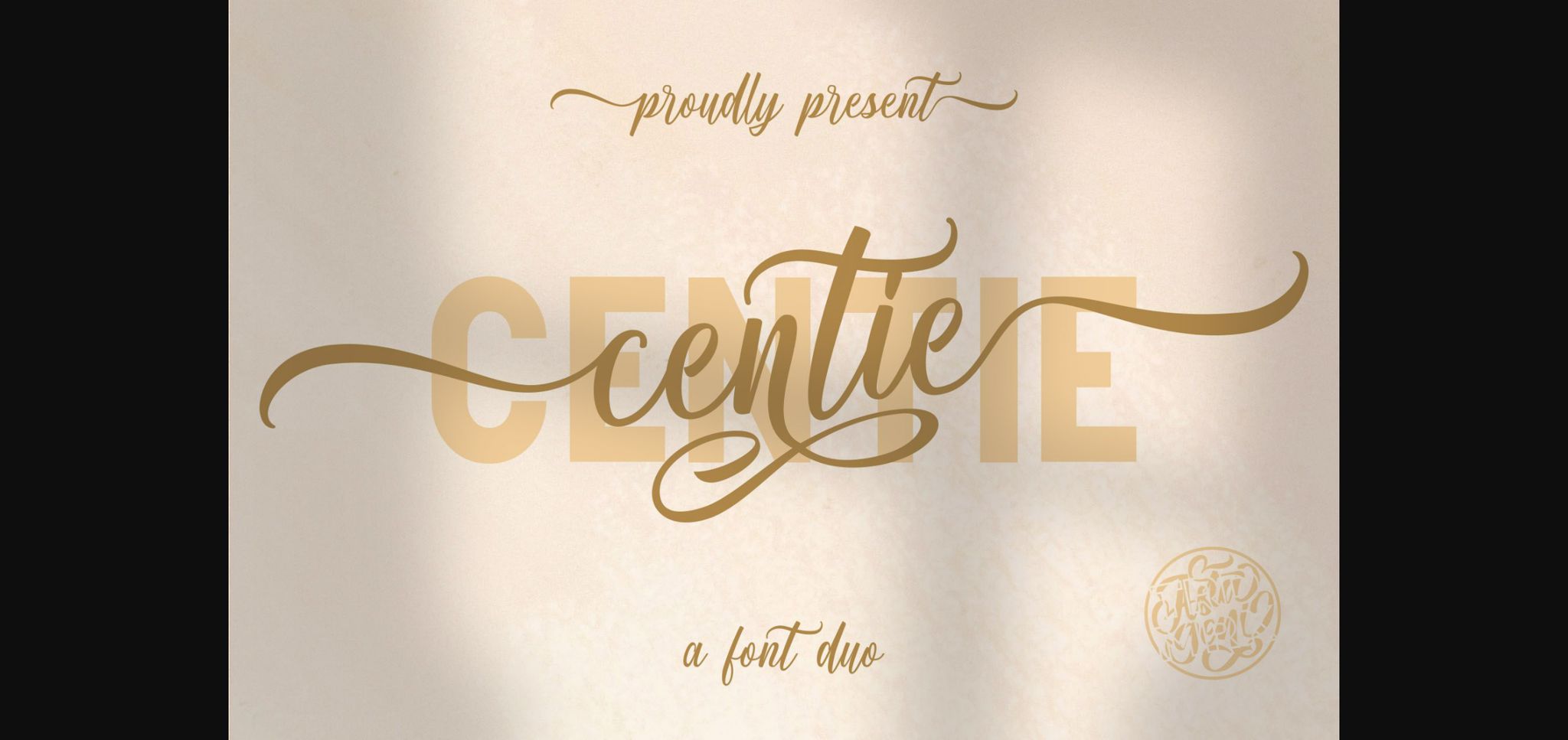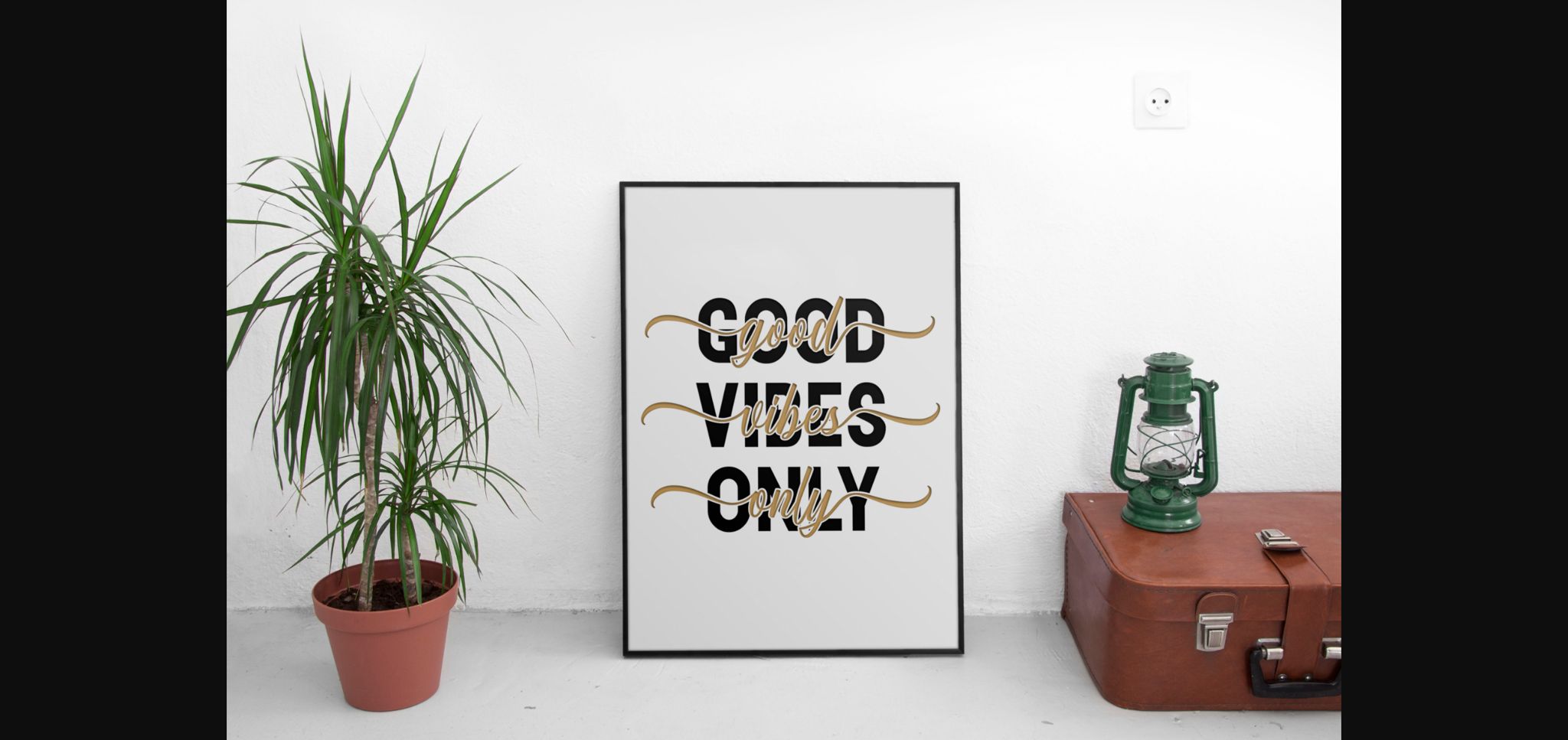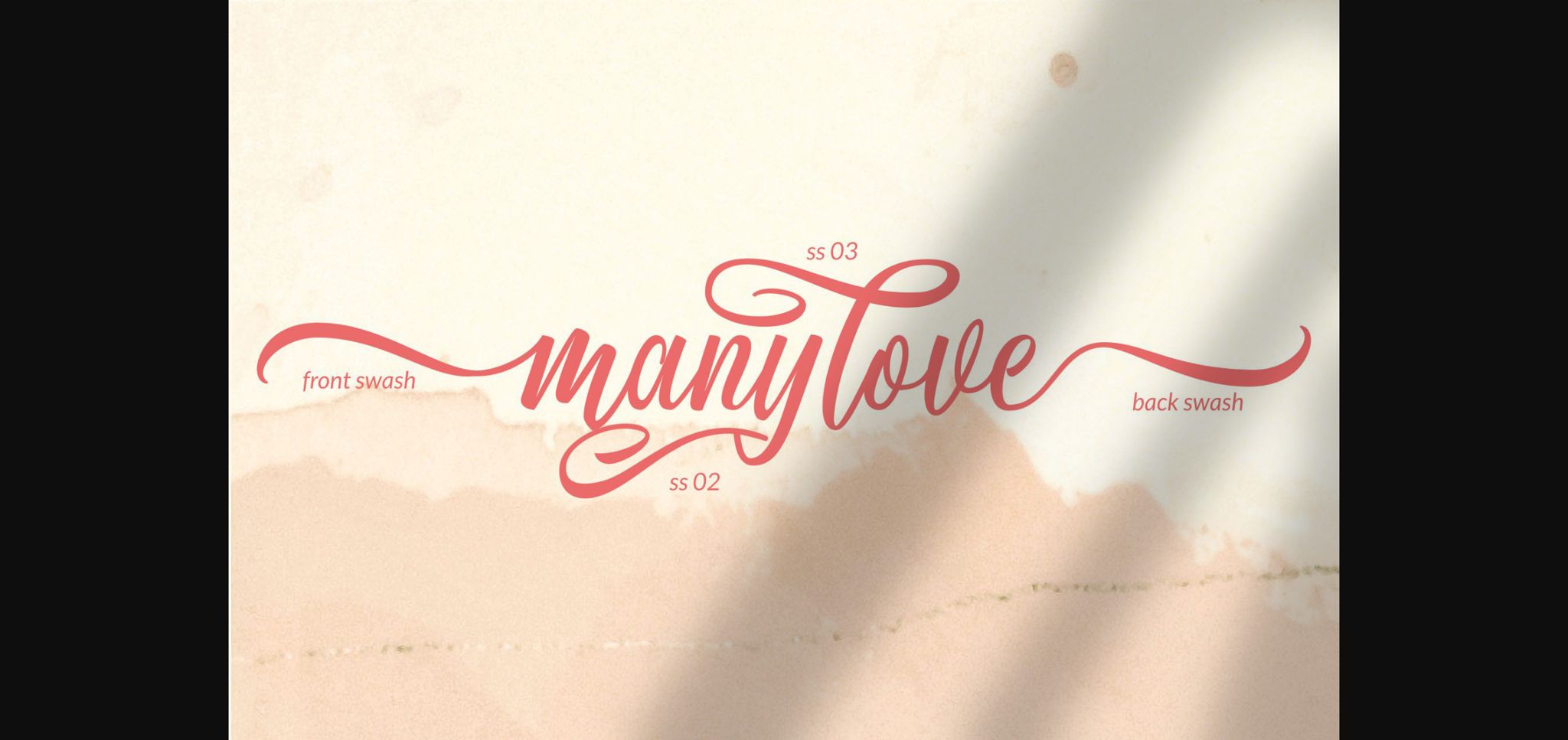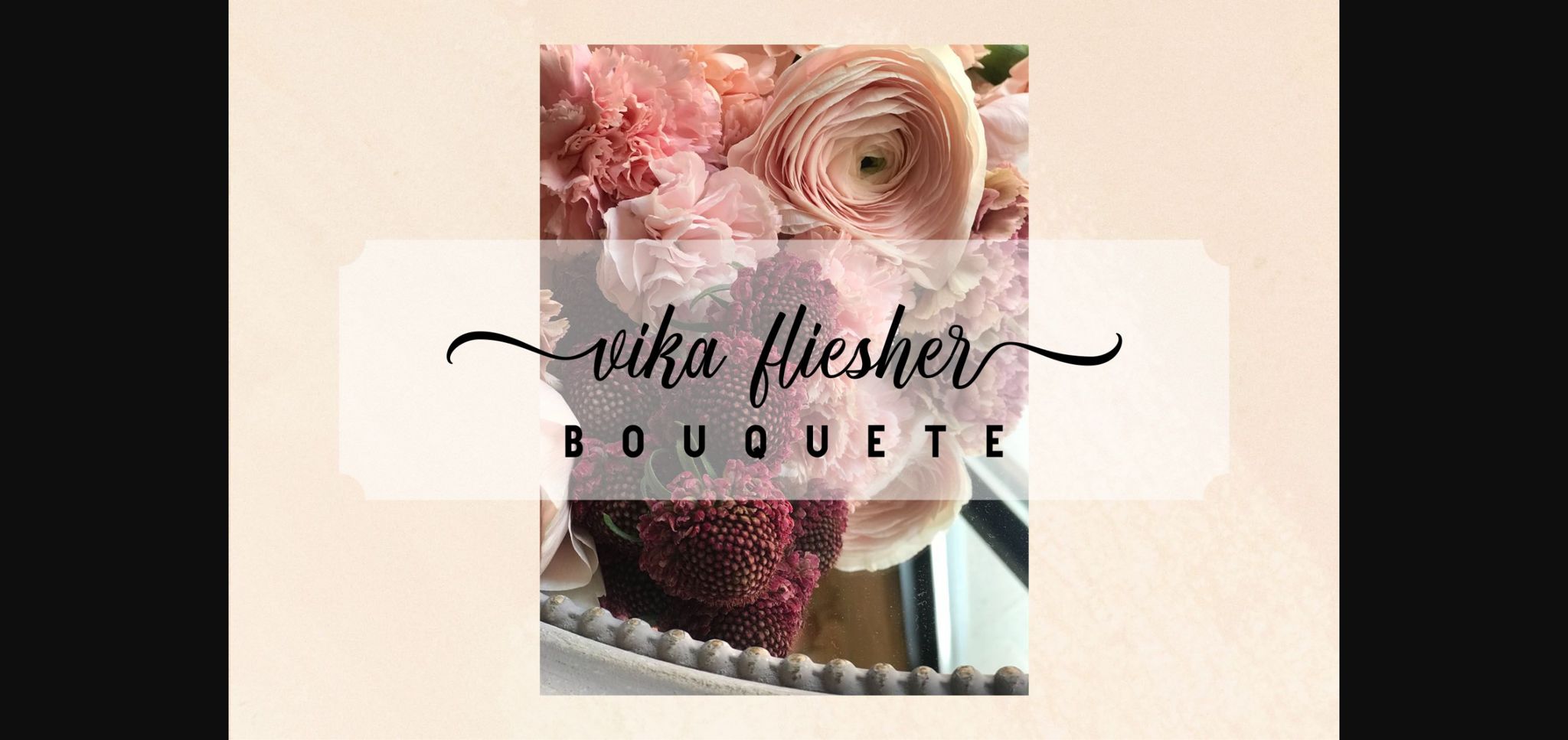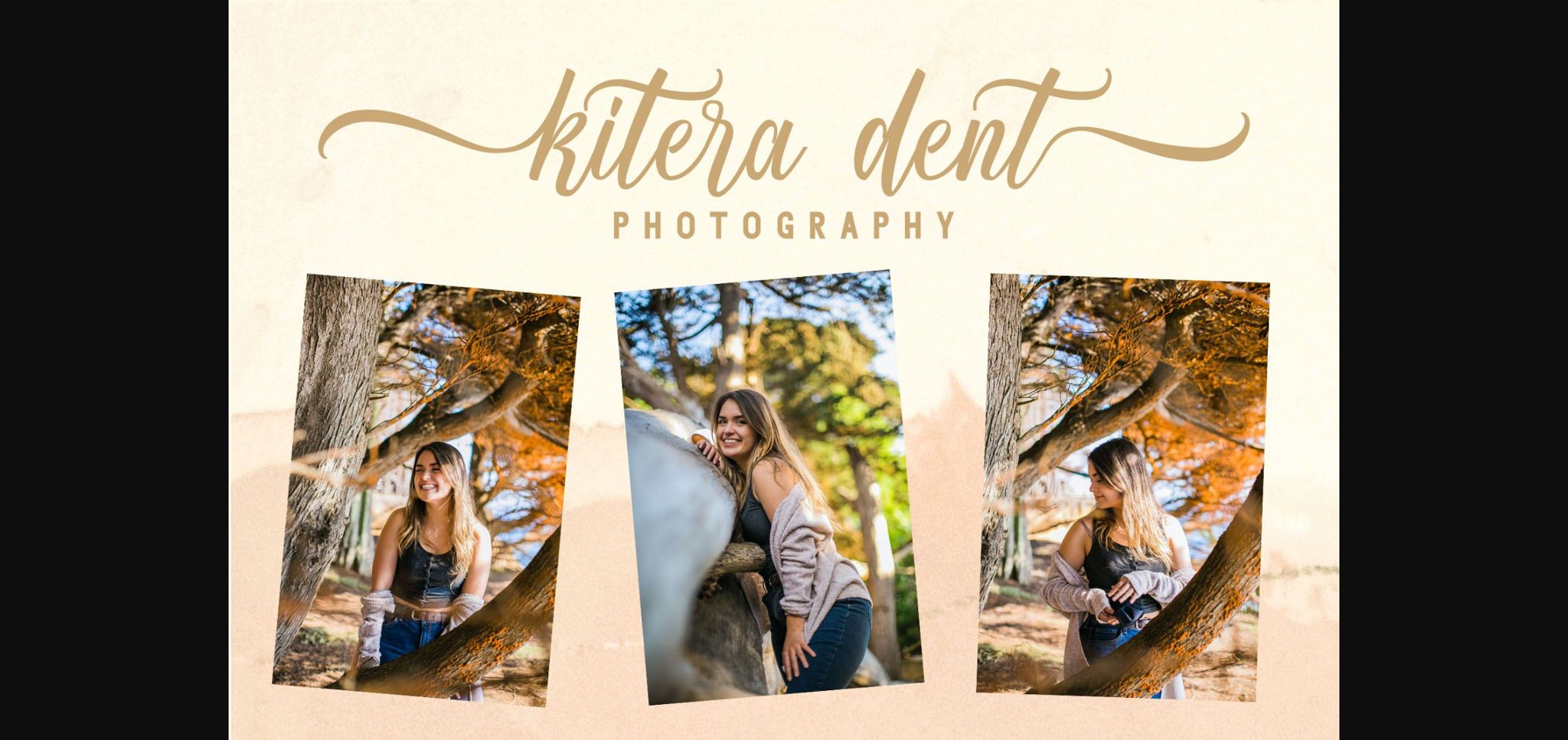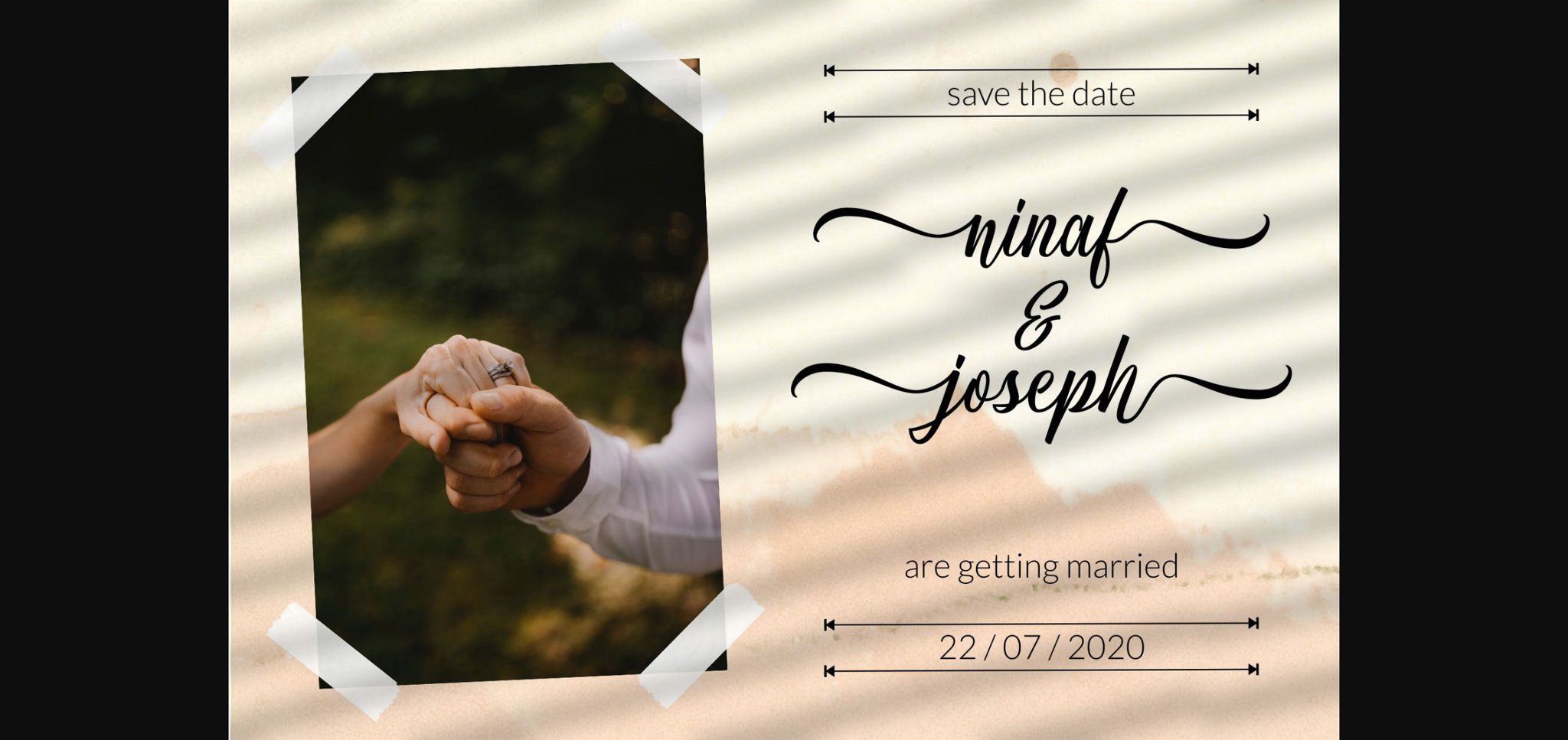
Centie Font
About Centie Font
Centie is a spectacular duo font (sans serif and script). Incredibly versatile, this font fits a wide pool of designs, elevating them to the highest levels. Add this font to your favorite creative ideas and notice how it makes them come alive!